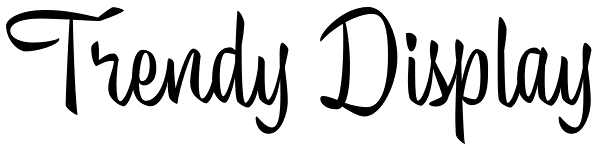
Trendy
Welcome fashionistas, we have designed a type family based on fashion and current trends. Trendy, the new font of our studio follows the same design line that represents us, processes with brush lettering, variety of characters, OpenType programming...
Trendy Text Regular
Trendy Text Black
Trendy Display
Trendy Stencil
Trendy Text Bold